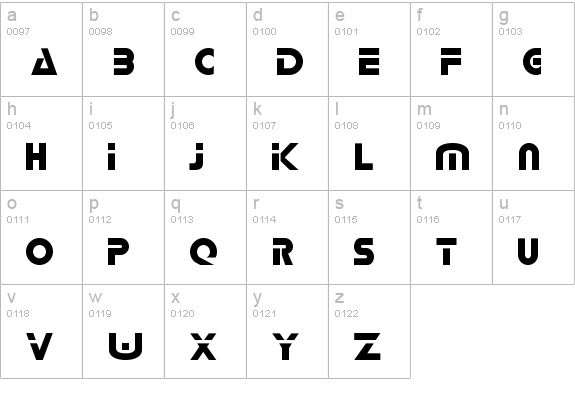
LynzFont Font Details
Introducing LynzFont - a unique and stylish font that is sure to make your projects stand out! This modern and versatile typeface features sleek lines and a clean design that is perfect for a wide range of uses. Whether you're working on a branding project, designing a website, or creating eye-catching graphics, LynzFont is the perfect choice to add a touch of sophistication and elegance. The best part? LynzFont is completely free to download at FontsMarket.com! With just a few clicks, you can bring this stunning font into your creative arsenal and take your designs to the next level. Don't miss out on this amazing opportunity to enhance your projects with the beauty and elegance of LynzFont. Download it today and start creating!